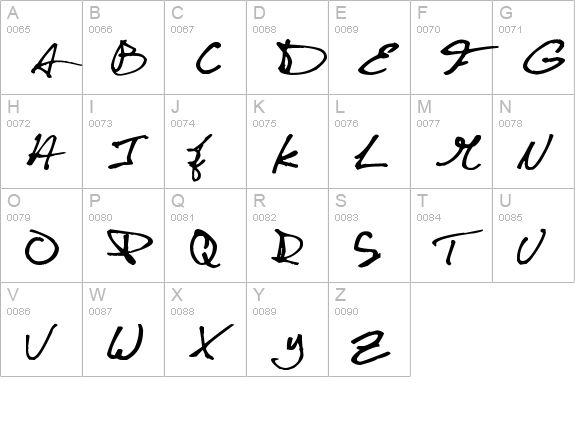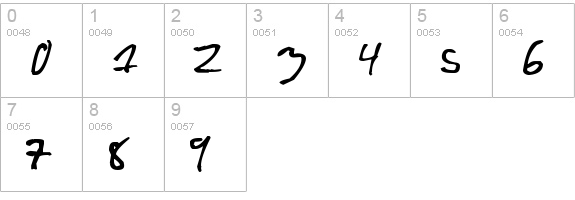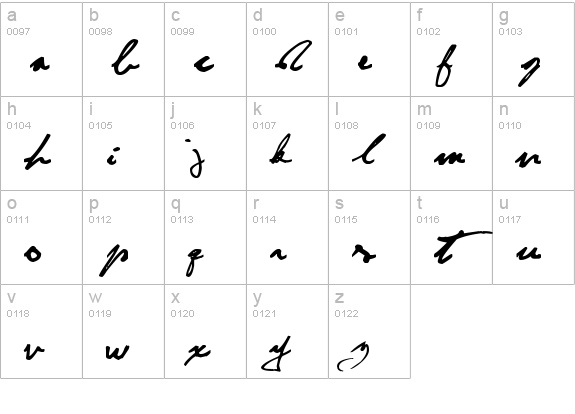
CuttyFruty font is a delightful and whimsical typeface that adds a touch of fun and playfulness to any design project. With its unique blend of curvy lines and bold strokes, CuttyFruty is perfect for creating eye-catching headlines, posters, logos, and more. This font is versatile and can be used for a variety of creative purposes, making it a must-have addition to any designer's toolkit. Best of all, CuttyFruty is available for free download at FontsMarket.com, allowing you to easily access this charming font and incorporate it into your designs without any cost. Don't miss out on the opportunity to add CuttyFruty to your collection and bring a burst of creativity to your projects!